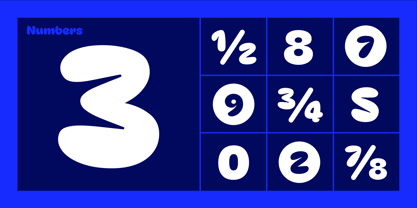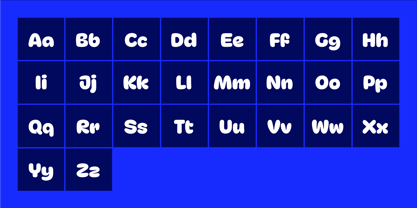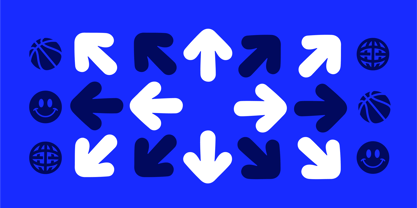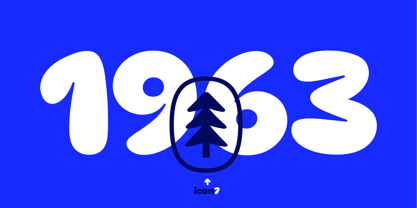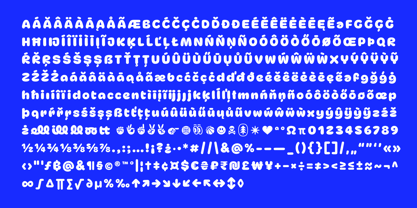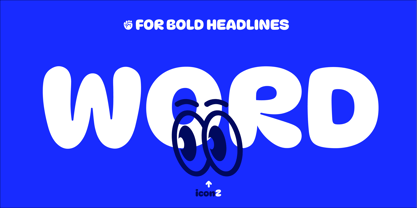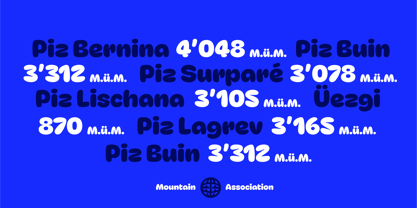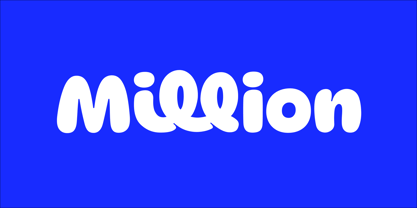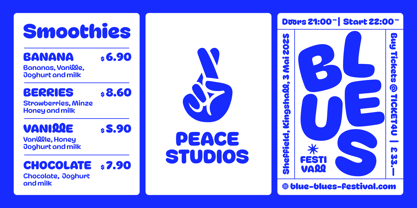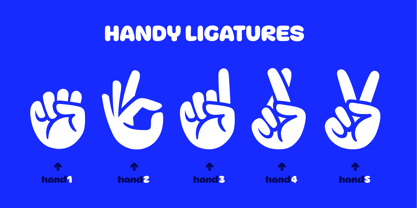
Roond
The Roond Font Family was designed by Simon Läuchli and published by Balua. Roond contains 2 styles and family package options.
Roond is a well-developed display typeface with pleasant, rounded, voluminous, and organic shapes. It looks especially great as an uppercase font. It is ideal for branding elements in the food industry (packaging & menus) or cultural fields (poster design, newsletters, etc.). Due to its unique form design, it can also be used for logo branding. However, its main use will likely be as a display typeface for striking headlines in magazines, blogs, or newsletters. Roond is the first typeface from the graphic studio Balua, created as part of a cultural project. Five common and fitting ligatures have been incorporated into the font. To add a bit of fun for users, the font also includes 17 symbols that can be accessed via OpenType or the Glyphs library.
Features:
• Lowercase & Uppercase letters
• Numbers & Punctuation
• International character set (multilingual)
• OpenType features (ligatures)
• Additional small set of symbols
About Balua
Balua is a small Swiss graphic studio based in Zurich that provides graphic services for small to medium-sized brands. At its core, Balua specializes in the design transformation of identities into visual presentations. My passion for typography developed through creating many wordmarks for my clients. The next step, expanding a wordmark into a typeface, was not far off.Originally, I trained as a carpenter. The foundation for becoming a graphic designer was laid when I attended the preparatory design course in Zurich. Afterward, I gained practical experience over several years as an intern at agencies and graphic studios. I then started my own business under the brand "Balua" as a graphic designer. Working with fonts is a passion I pursue alongside my client projects. In my free time, you can find me in beautiful places in nature – in the Swiss mountains or on the Atlantic coast in nearby countries, where I gather a lot of inspiration from people, nature, and culture.